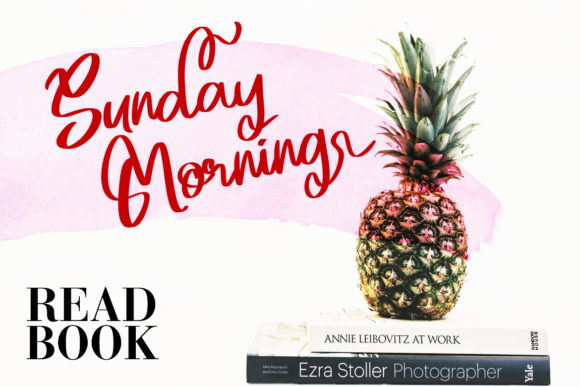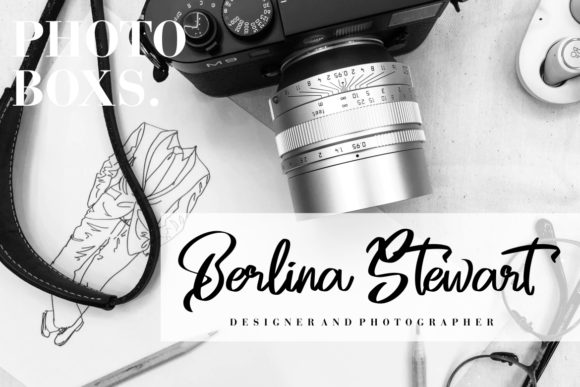
The Englands Font
db-ku.com - Script & Handwritten -- The Englands is elegant and fancy but also authentic. This versatile calligraphy font has a wide range of applications ranging from crafting designs to headlines and is guaranteed to add a sophisticated touch to your next design.